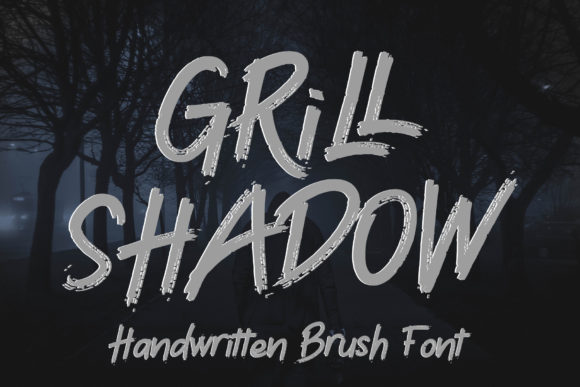
Unleash the Spooky Charm with Grill Shadow: The Epitome of Horror Aesthetics
In the realm of spine-tingling visuals, Grill Shadow emerges as the ultimate horror font, casting an ominous spell on your designs. Its eerie, hand-crafted brushstrokes ignite a haunting atmosphere, evoking the thrill of dark tales and otherworldly encounters. Whether you're a seasoned horror enthusiast or a creative seeking a touch of the macabre, Grill Shadow will transport you to a realm of chilling artistry.
Immerse yourself in the shadowy elegance of Grill Shadow, a masterstroke of font design that captures the essence of fear and fascination. The clean lines and quirky twists of each character dance together, creating a visual symphony that will leave your audience spellbound. Picture your logos, branding, social media posts, and DIY projects adorned with the chilling beauty of Grill Shadow, captivating all who dare to gaze upon them.
With Grill Shadow, you hold the power to evoke emotions that linger long after the page is turned. Its horror-inspired charm will elevate your designs to new heights of creativity, leaving an indelible mark on the minds of your audience. Unleash the dark allure of Grill Shadow and watch as your creations transform into haunting masterpieces.